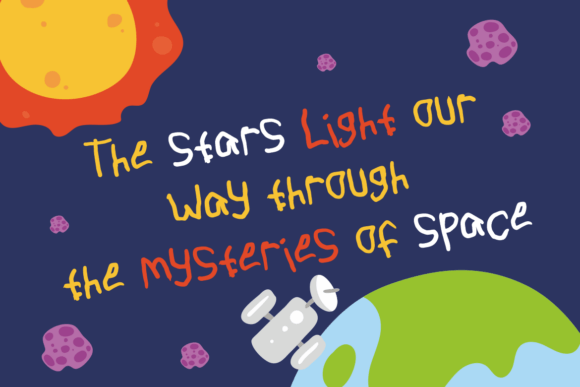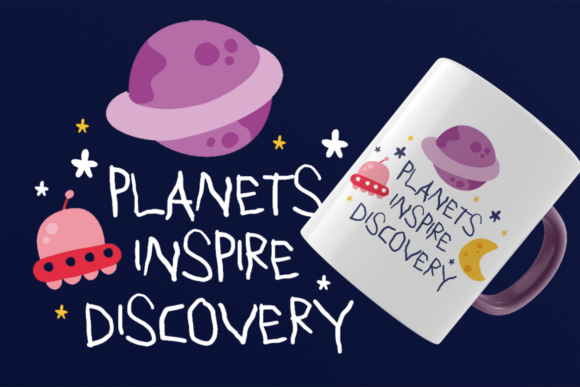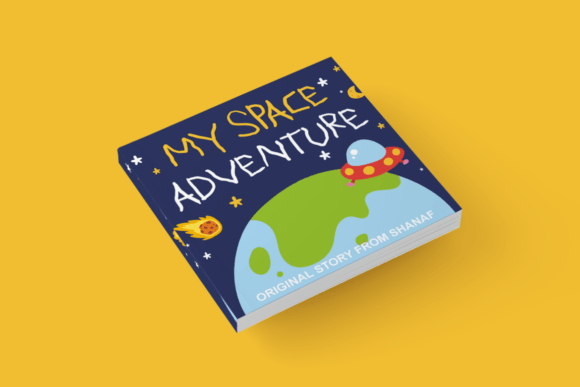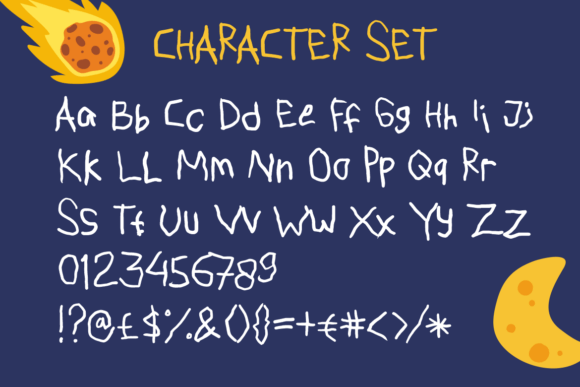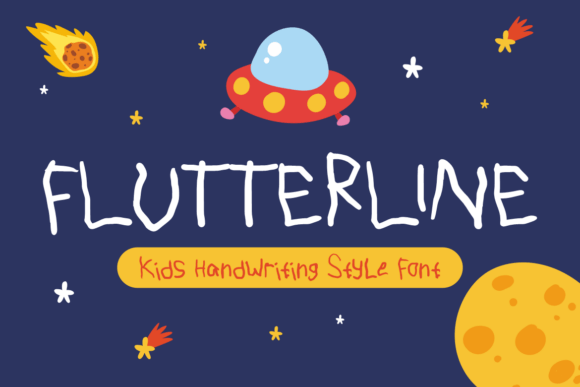
Introducing FlutterLine – Kids Handwriting Style Font
Are you tired of using the same old fonts in your designs? Look no further! We’re excited to introduce FlutterLine, a whimsical typeface that captures the essence of childlike wonder and creativity. With its playful scribbles and rounded monoline strokes, FlutterLine brings a touch of innocence and joy to any project.
The Charm of Hand-Drawn Perfection
Each letter in FlutterLine is hand-drawn with care, resembling the charming imperfections of a child’s writing. Yet, it maintains a clean and professional structure that makes it versatile for various design needs. The font’s unique blend of playfulness and sophistication makes it perfect for designers and crafters looking to add a personal touch to their work.
Whether you’re crafting an invitation card that calls for a personal touch or designing a logo that stands out with its cute and sketchy style, FlutterLine delivers with flair. The font’s playful and approachable nature makes it ideal for a range of design projects, including:
- Branding efforts that aim to evoke warmth and friendliness
- Packaging designs where approachability is key
- Movie titles or book covers that require an element of playfulness without sacrificing legibility
A Gateway to Nostalgia
FlutterLine isn’t just another handwritten typeface; it’s a gateway to nostalgia, making your designs feel like a warm hug from childhood. The font’s ability to evoke a sense of nostalgia and playfulness makes it perfect for designers and crafters looking to create engaging and memorable designs.
Key Features of FlutterLine
- Hand-drawn with care, each letter has a unique and charming character
- Rounded monoline strokes give the font a playful and approachable feel
- Clean and professional structure makes it versatile for various design needs
- Perfect for branding efforts, packaging designs, movie titles, and book covers
Why Choose FlutterLine?
With so many fonts available, why choose FlutterLine? Here are just a few reasons why FlutterLine stands out from the crowd:
- Unique and playful design that adds a personal touch to your work
- Versatile and adaptable, perfect for a range of design projects
- High-quality, hand-drawn letters that maintain a clean and professional structure
- Evokes a sense of nostalgia and playfulness, making your designs feel engaging and memorable
Get Ready to Bring a Touch of Whimsy to Your Designs
With FlutterLine, you can add a touch of whimsy and playfulness to your designs. Whether you’re a designer, crafter, or DIY enthusiast, FlutterLine is the perfect font for anyone looking to create engaging and memorable designs. So why wait? Download FlutterLine today and bring a touch of childlike wonder to your work!
Tips and Tricks for Using FlutterLine
Here are a few tips and tricks for getting the most out of FlutterLine:
- Use FlutterLine in combination with other fonts to create a unique and eye-catching design
- Don’t be afraid to get creative and try out new and innovative design ideas
In conclusion, FlutterLine is a unique and playful font that brings a touch of childlike wonder and creativity to any project. With its hand-drawn letters, rounded monoline strokes, and clean and professional structure, FlutterLine is perfect for designers and crafters looking to add a personal touch to their work. So why wait? Download FlutterLine today and start creating engaging and memorable designs that will leave a lasting impression!